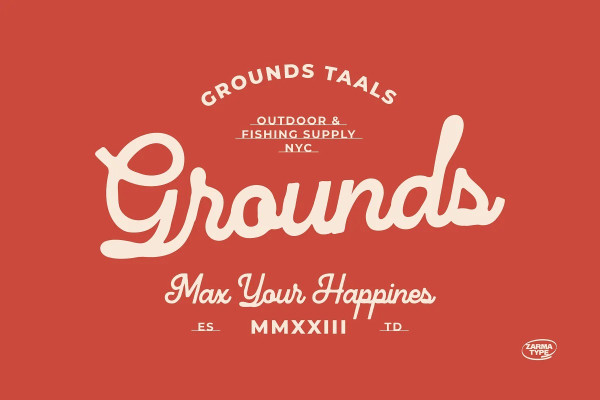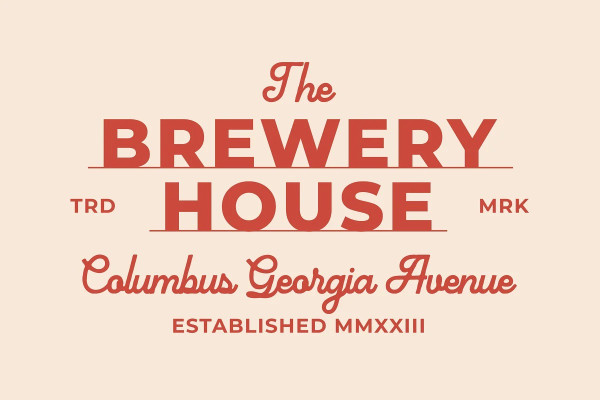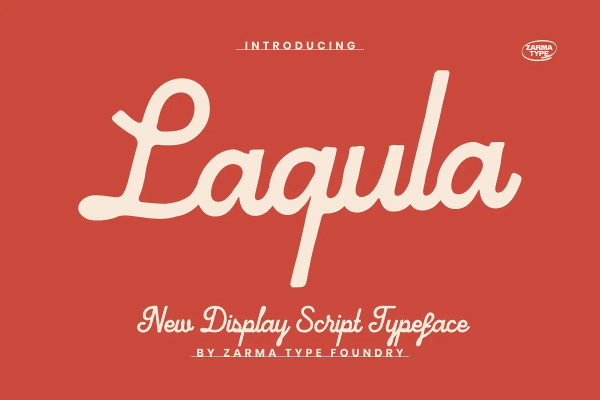
Laqula Font
Laqula Font, a captivating script font that effortlessly blends classic charm with modern touches, elevating readability to new heights. With its medium letter thickness, generous ascenders and descenders, and petite x-height, this font strikes the perfect balance for legibility. Its hand-drawn aesthetic adds a touch of organic imperfection, as if each stroke were meticulously crafted by hand, creating a delightful visual appeal. Infused with a retro vibe.
Laqula is an ideal choice for various design projects including posters, postcards, logos, and more, particularly those with a theme of travel, outdoor, county, old school, and beyond. With an extensive range of alternative characters and comprehensive coverage of extended Latin A for multilingual support, this font boasts a total glyph count of 394. Unlock endless creative possibilities with Laqula, and let your designs come to life with its unique character and versatility.